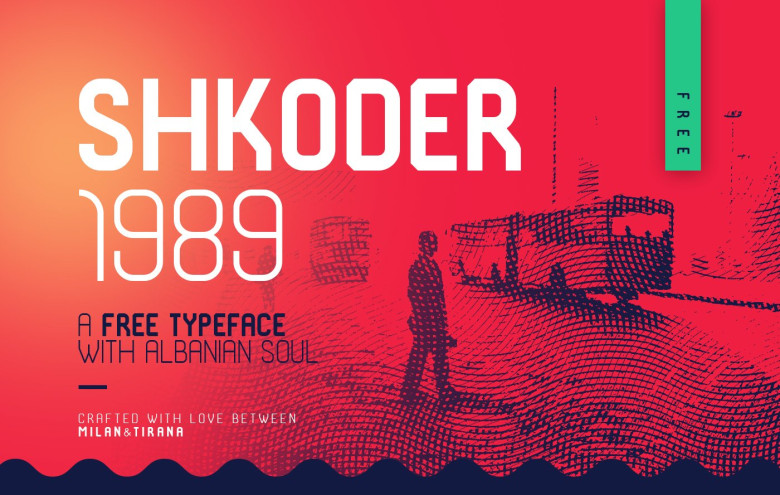
SHKODER 1989 TYPEFACE
SHKOOER 1888 BURNS FROM THE IDER TO GIVE BACK SOMETHING TO THE INTERNET :D. IT TAKES INSPIRATION FROM THE 90’S FROM TECHNOLOGY, SPORTS AND ALL THOSE THINGS THAT INFLUENCEO 90’S KID’S IMAGINATION. THE NAME IS A CELEBRATION OF A POETIC CITY IN THE NORTH OF ALBANIA. WE MADE SOME EXAMPLES TO INSPIRE YOU, SO FEEL FREE TO DOWNLOAD AND TO CREATE SOMETHING AMAZING !